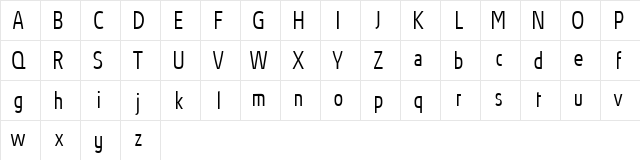
Complete Absolut Pro Condensed reduced Regular glyph index. Displaying only characters natively supported by Absolut Pro Condensed reduced Regular font.
Absolut Pro Condensed reduced is a composed and adaptable typeface that performs quietly and consistently across a wide range of design contexts. Its narrow stance lets it pack a punch even in space-constrained designs.